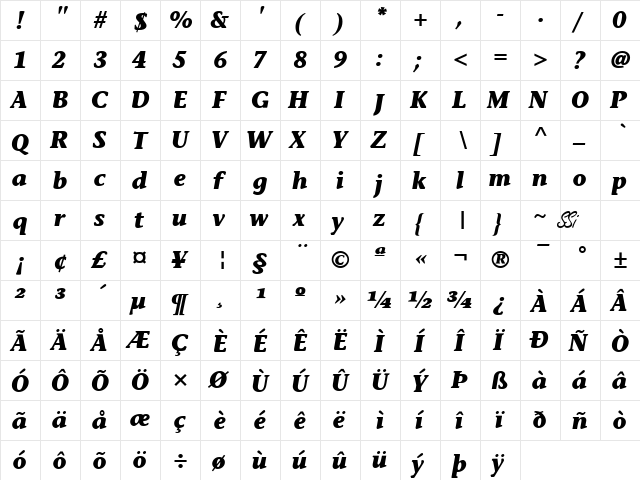
Mesouran Casual Black SSi Bold Italic Font Preview
Design Context for Mesouran Casual Black SSi Typeface
Mesouran Casual Black SSi offers clean, dependable letterforms without strong stylistic allegiance, making it a practical choice for designers who need flexibility. The dynamic lean of this cut emphasises speed and emphasis in any layout. The heavy weight commands attention and anchors typographic hierarchies.
Pro Tip: Try Mesouran Casual Black SSi for annotation and caption copy alongside an upright companion — the contrast in angle creates a dynamic but ordered typographic system.